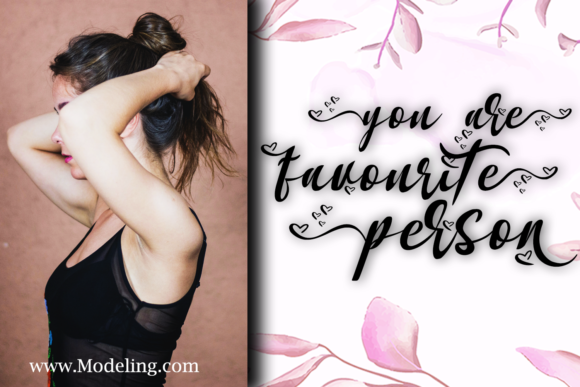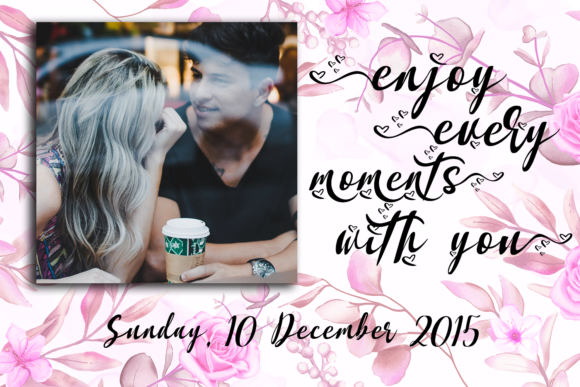
About Hasnabilla Font
Hasnabilla is a sweet handwritten font with a romantic look. Fall in love with its authentic feel and use it to create gorgeous wedding invitations, beautiful stationary art, eye-catching social media posts, and cute greeting cards. This font is PUA encoded which means you can access all of the cute glyphs and swashes with ease! It also features a wealth of special features including alternate glyphs and ligatures.